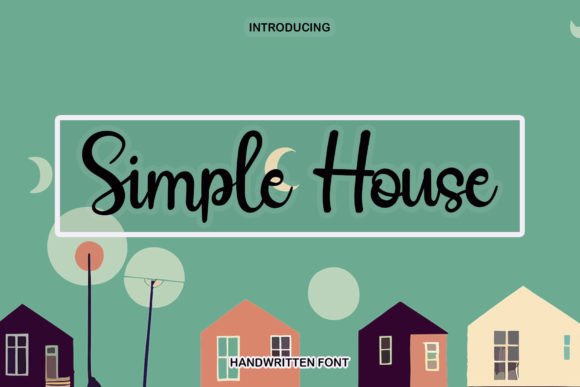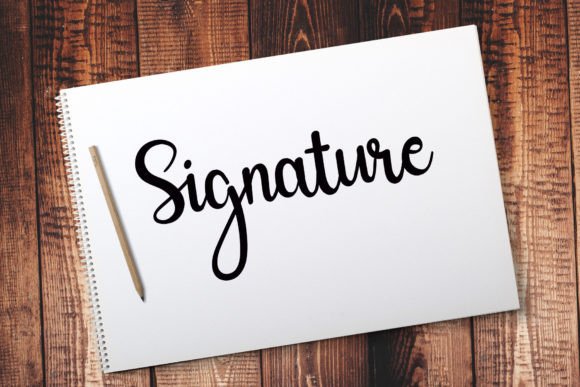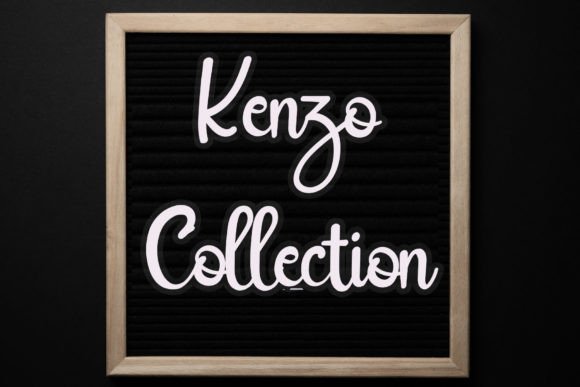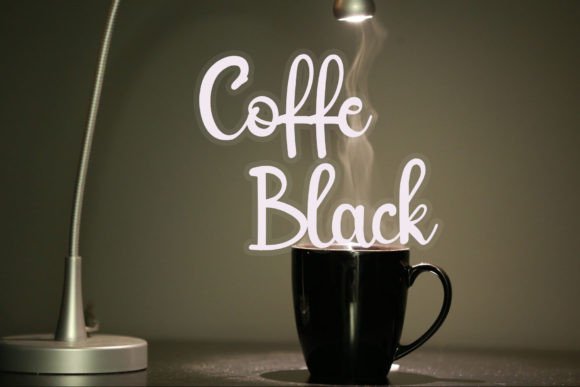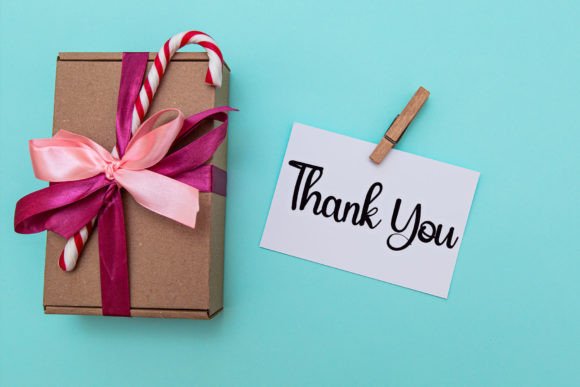
Simple House Font
About Simple House Handwritten Font
Simple House Handwritten Font is a classic and stylish script typeface designed with a natural freestyle flow. With its balanced strokes and handcrafted look, it brings authenticity and elegance to both casual and professional projects. Because of its versatility, Simple House Handwritten Font works well for logos, posters, apparel branding, magazines, comics, and digital designs.
A Handwritten Typeface with Freestyle Character
Handwritten fonts add personality and charm, and Simple House Handwritten Font captures this essence beautifully. Its strokes are crafted in a random freestyle, giving each letter a unique appearance while still maintaining overall consistency. In addition, its clean design ensures clarity, making it perfect for creative yet professional applications.
Perfect Typeface for Logos and Headlines
When it comes to projects that need attention, Simple House HandwrittenFont shines as a headline or logotype choice. For example, it enhances music covers, movie posters, and advertising campaigns with character. Moreover, it works well for corporate branding, fashion labels, and creative industries, delivering a memorable and distinctive style.
A Script Typeface for Magazines and Books
Writers, publishers, and designers can also benefit from Simple House HandwrittenFont. It adds a playful yet elegant look to comics, cartoons, magazines, and books. Furthermore, it adapts seamlessly to digital reading platforms and print layouts, ensuring a consistent and stylish presentation.
Flexible Across Print and Digital Media
Another strength of Simple House HandwrittenFont is its adaptability across formats. In print, it stands out on brochures, merchandise, and posters. Digitally, it integrates smoothly into blogs, websites, and game interfaces. Since it scales well from small icons to large headlines, it maintains readability and balance across all mediums.